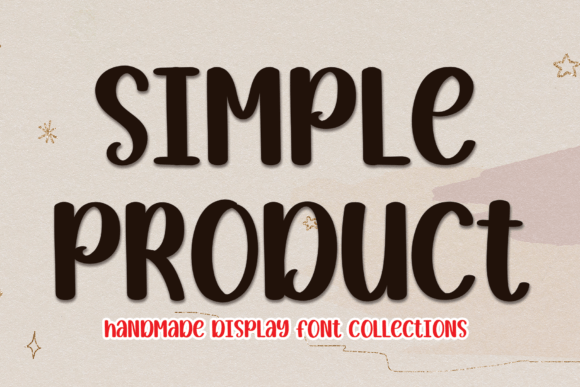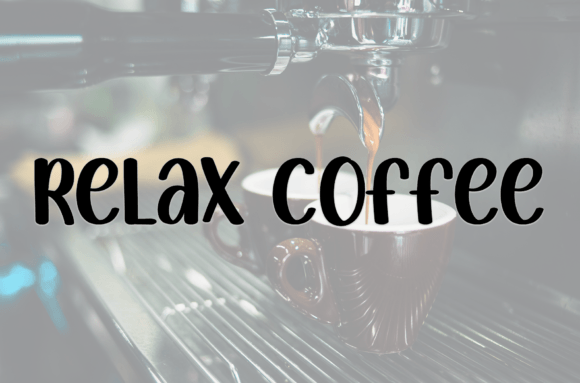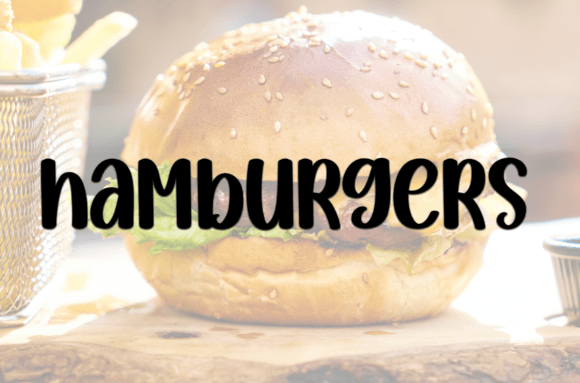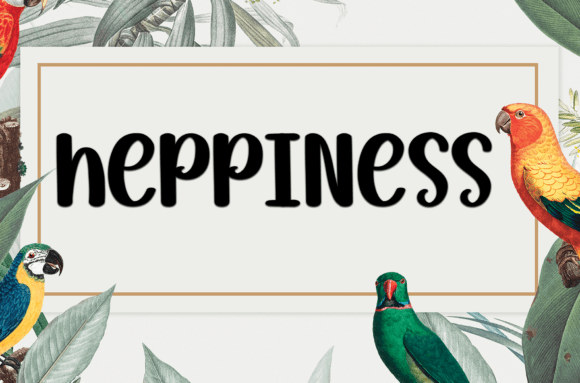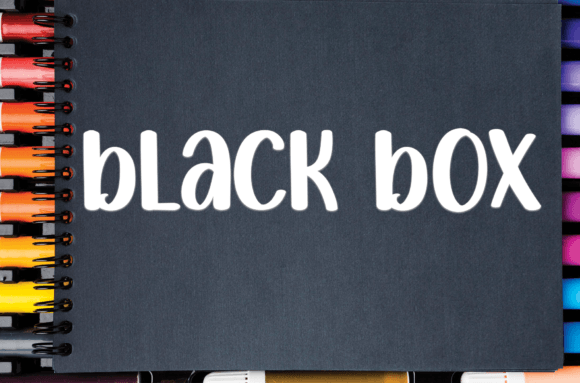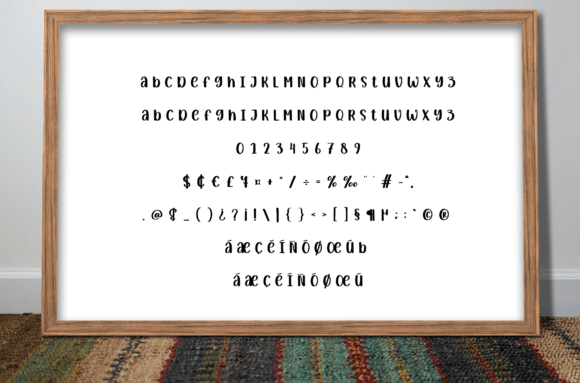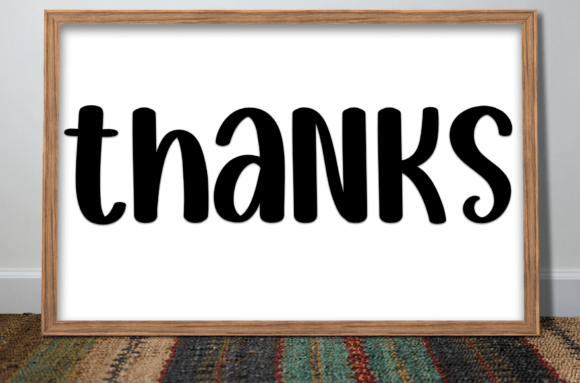
Simple Product Font
About Simple Product Font
Simple Product Font is a sweet and friendly handwritten typeface that brings a fun and relaxed vibe to your designs. Its approachable style makes it perfect for wedding invitations, greeting cards, and any project that requires a joyful and heartfelt touch. Simple Product adds warmth and personality, making your creative work feel more personal and inviting.
Fun and Relaxed Handwritten Style
Simple Product features soft, flowing strokes and friendly letterforms that create a welcoming and cheerful atmosphere. This font balances casual charm with clarity, ensuring your designs look both playful and polished.
Ideal Uses for Simple Product Font
This font is ideal for:
• Wedding invitations and save-the-date cards
• Greeting and thank-you cards
• Personal letters and notes
• Event signage and party decorations
• Social media posts and blog graphics
Its joyful and relaxed style fits many occasions.
Why Choose Simple Product Font?
Designers love Simple Product for its:
• Sweet, friendly handwritten appearance
• Clear readability and casual charm
• Versatility across print and digital media
These qualities make Simple Product a practical and delightful font choice.
Add Joy and Warmth to Your Designs
Typography plays a key role in conveying mood. Simple Product adds a joyful and heartfelt tone, making your projects feel genuine and inviting. Whether for weddings or casual projects, this font enhances emotional connection.
In conclusion, Simple Product Font is a sweet and friendly handwritten script perfect for designers wanting to add a joyful touch to invitations, cards, and more. Add Simple Product to your font collection for warm and inviting designs.